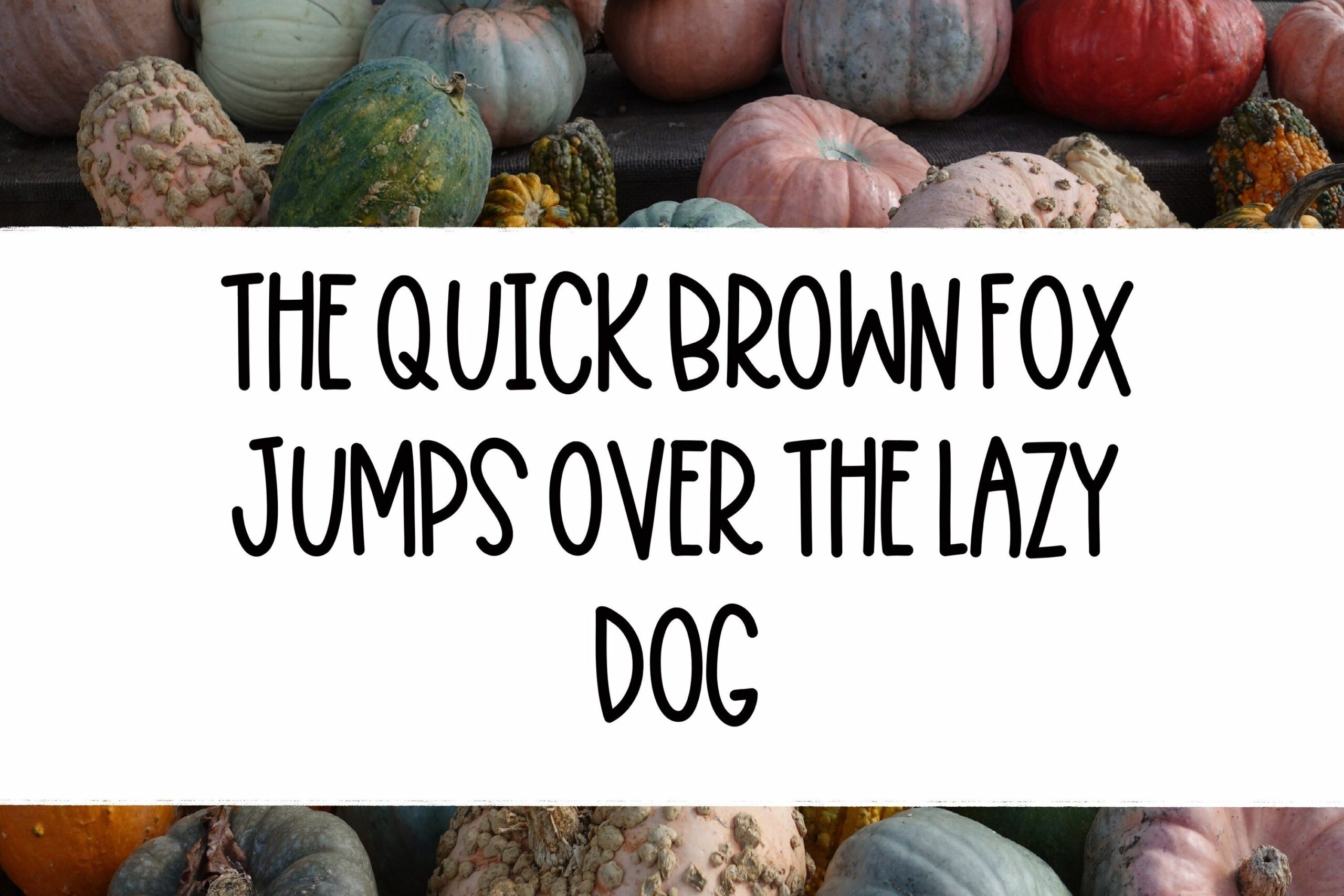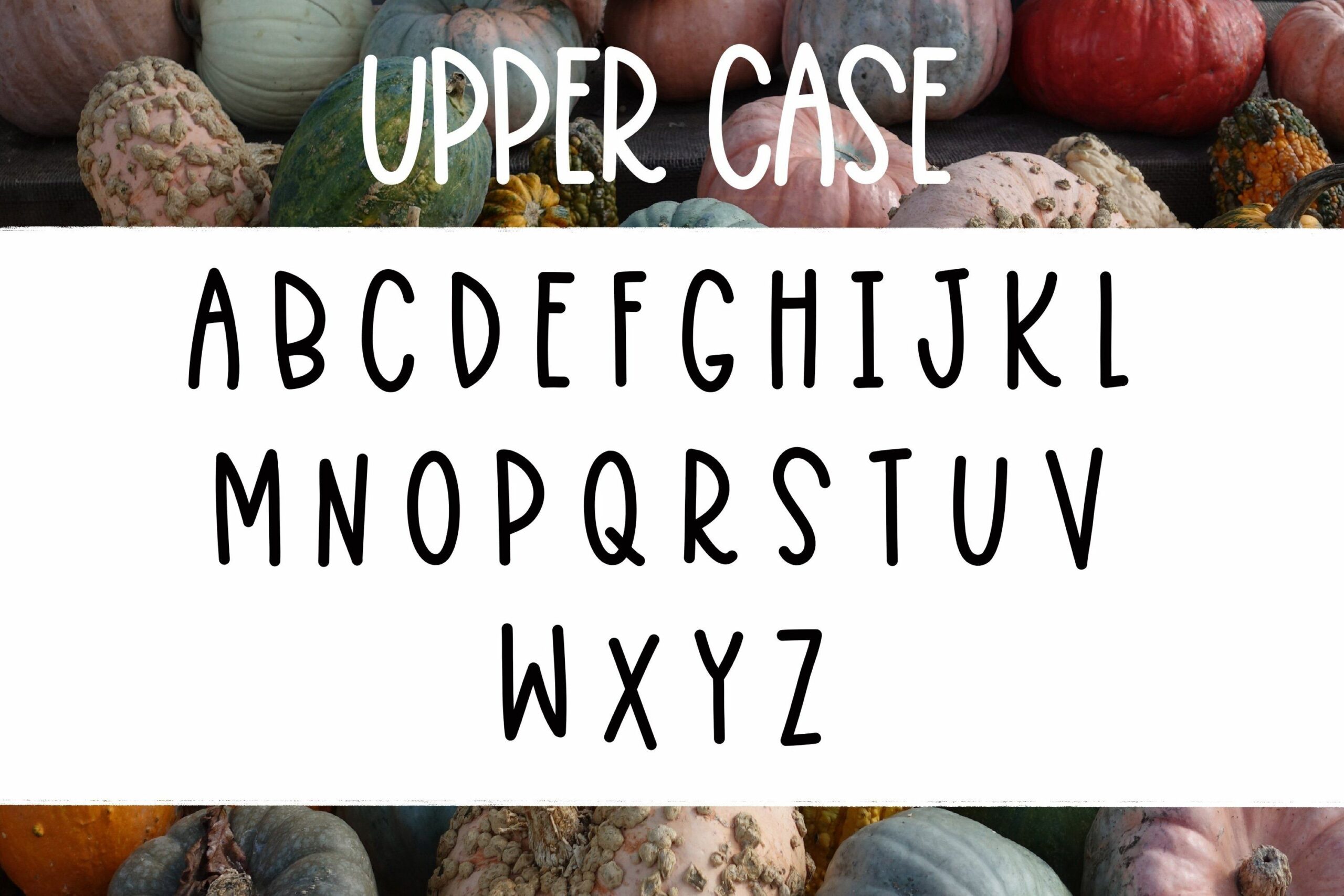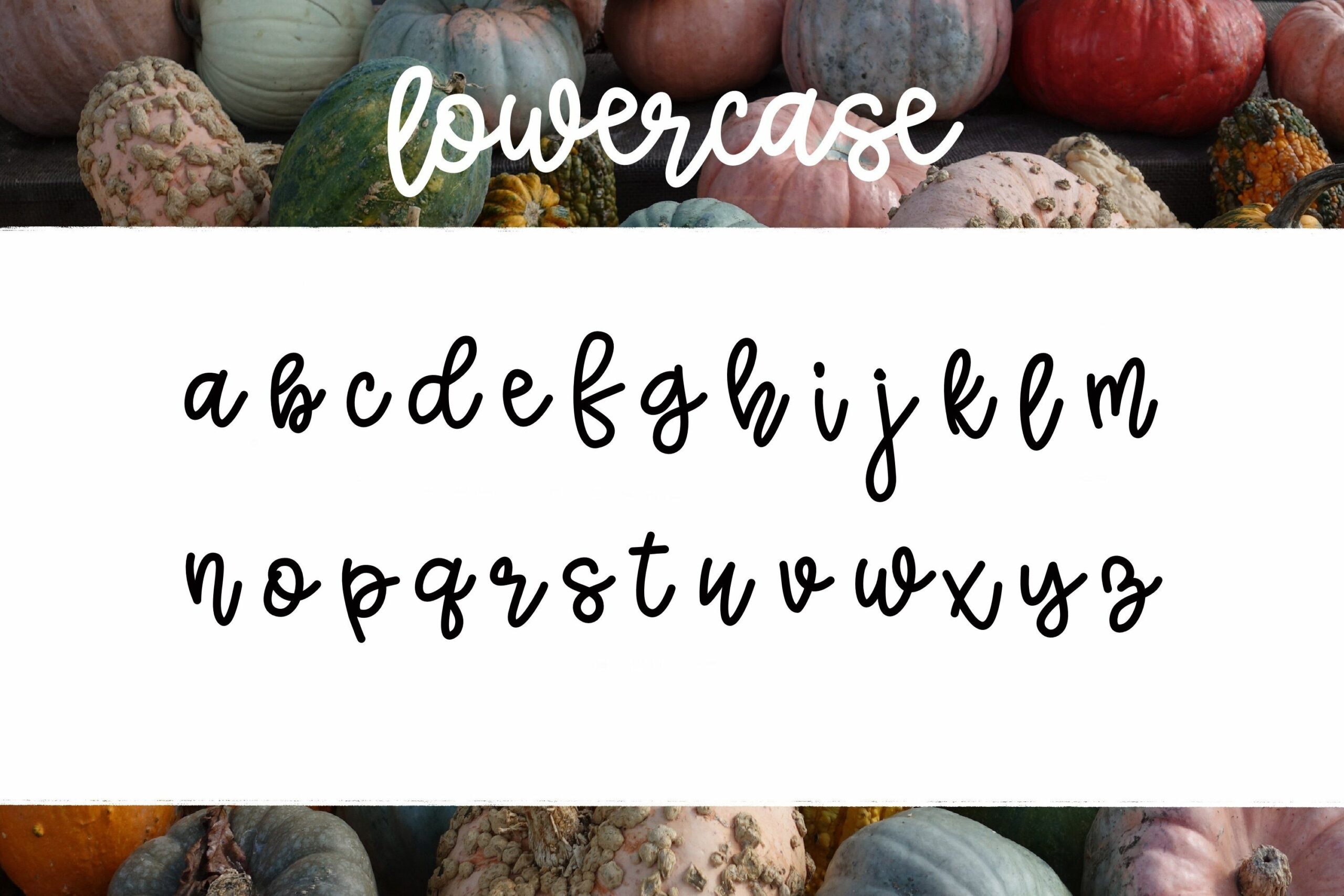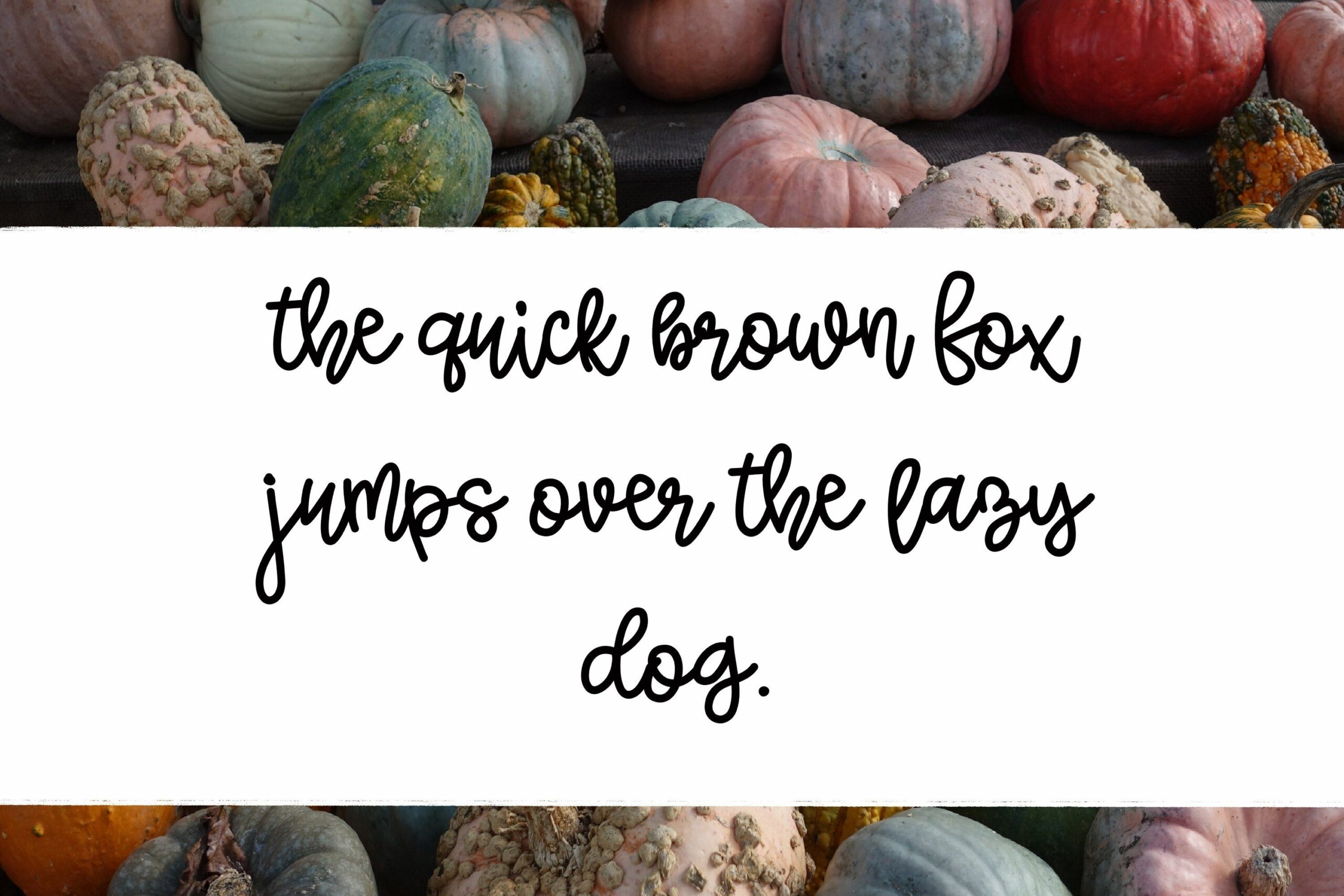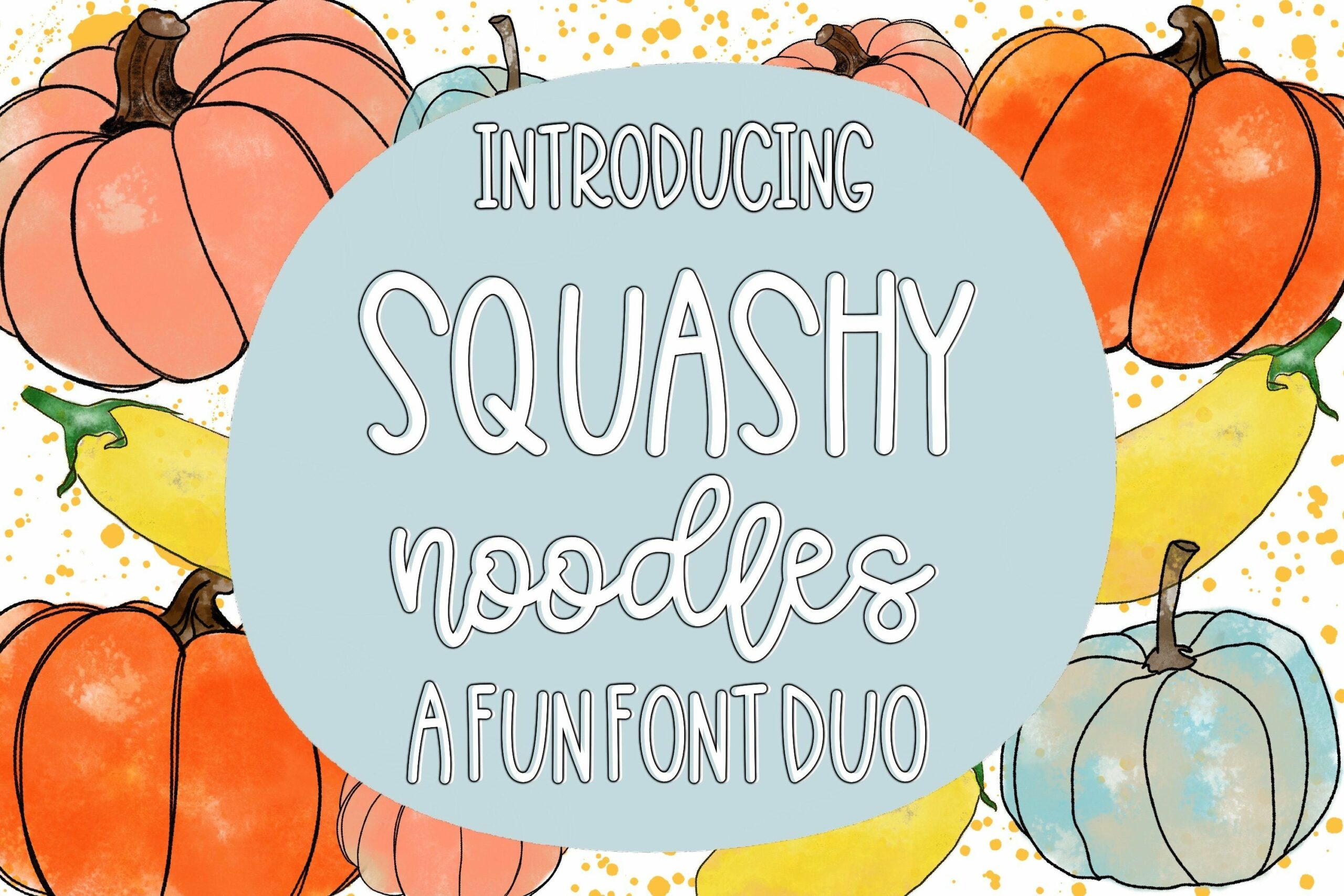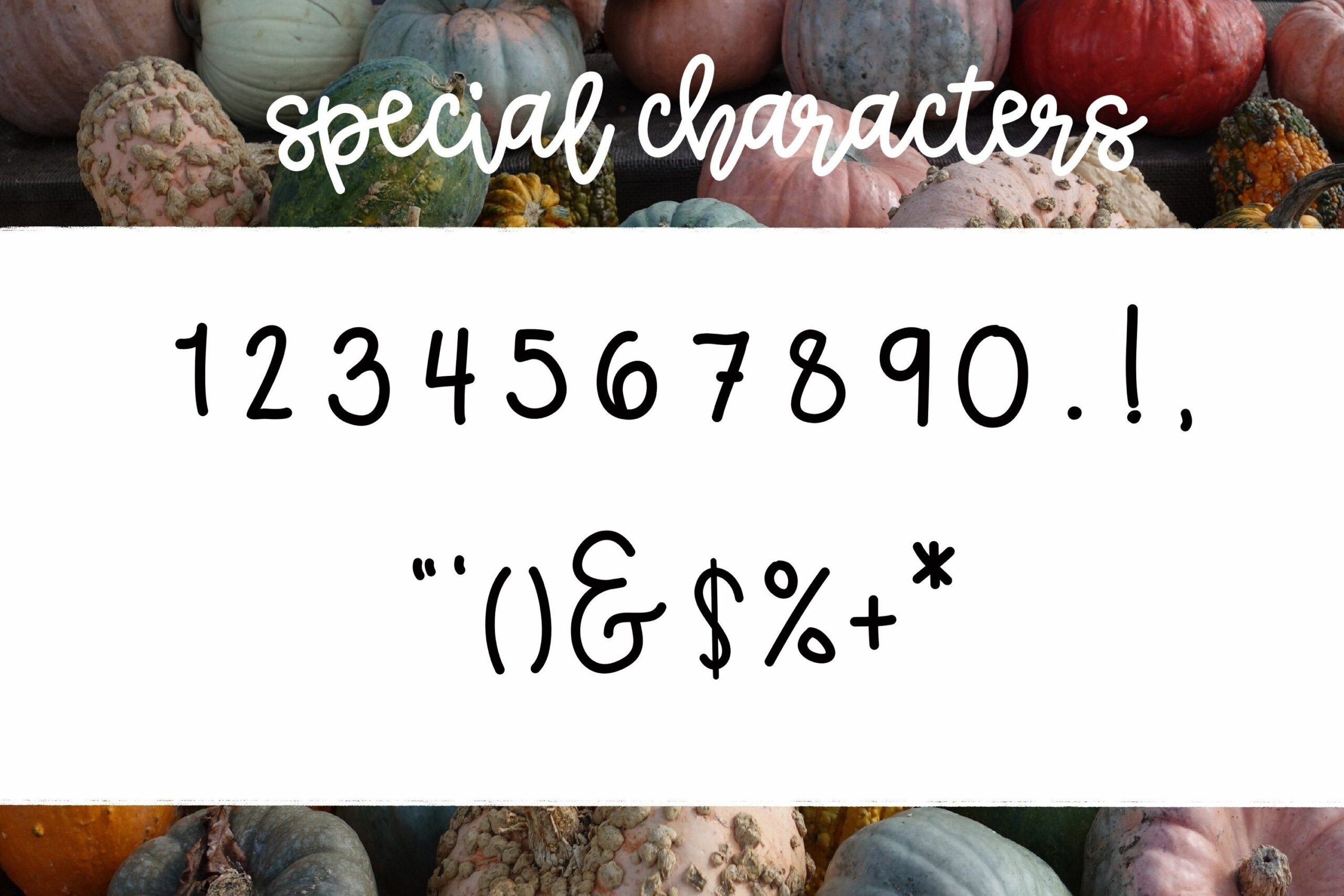
Squashy Noodles – A fun font duo
About Squashy Noodles – A fun font duo
Introducing Squashy Noodles! A fun hand lettered font duo. Use all uppercase for a hand written tall skinny font, and all lowercase for a beautiful handlettered script font. This duo is great for decorating your own items, invitations, and using as an element in your own designs. Because this is a fully functioning True Type Font, you will not have to trace each letter in Silhouette Studio or other similar programs in order to cut. Simply type and create! If you have any other questions about usage, please send me a message. I am happy to help!